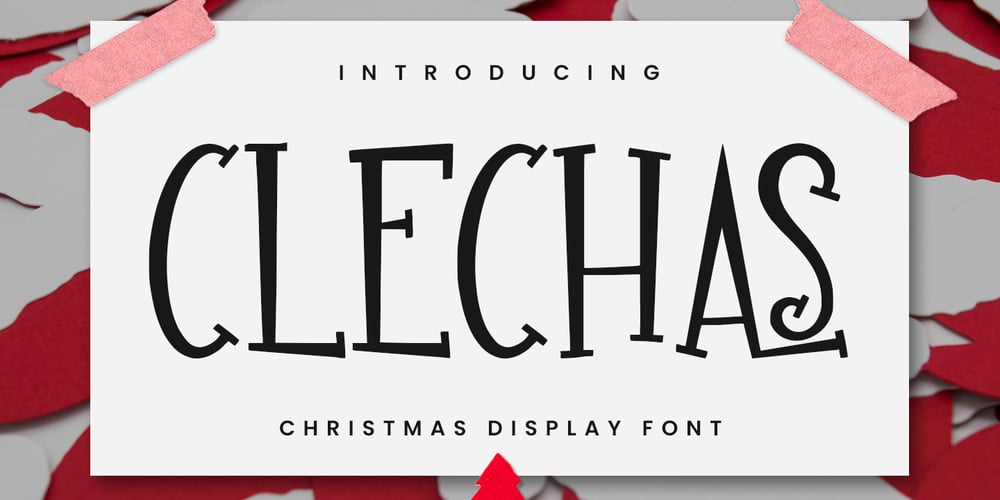
MC Clechas
MC Clechas font
MC Clechas Font Family was designed by Gilang Maulana and published by Maulana Creative. MC Clechas contains 1 styles and family package options. Clechas is a handwritten sans christmas display font. With simple stroke, fun character with a awesome ligatures. To give you an extra creative work Clechas font support multilingual more than 100+ language. This font is good for logo design, Social media, Movie Titles, Books Titles, a short text even a long text letter and good for your secondary text font with sans or serif. Make a stunning work with Clechas font.